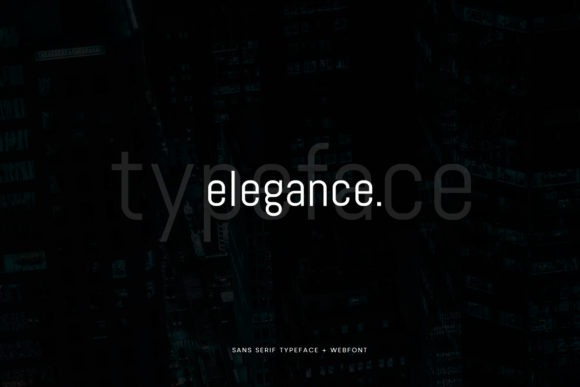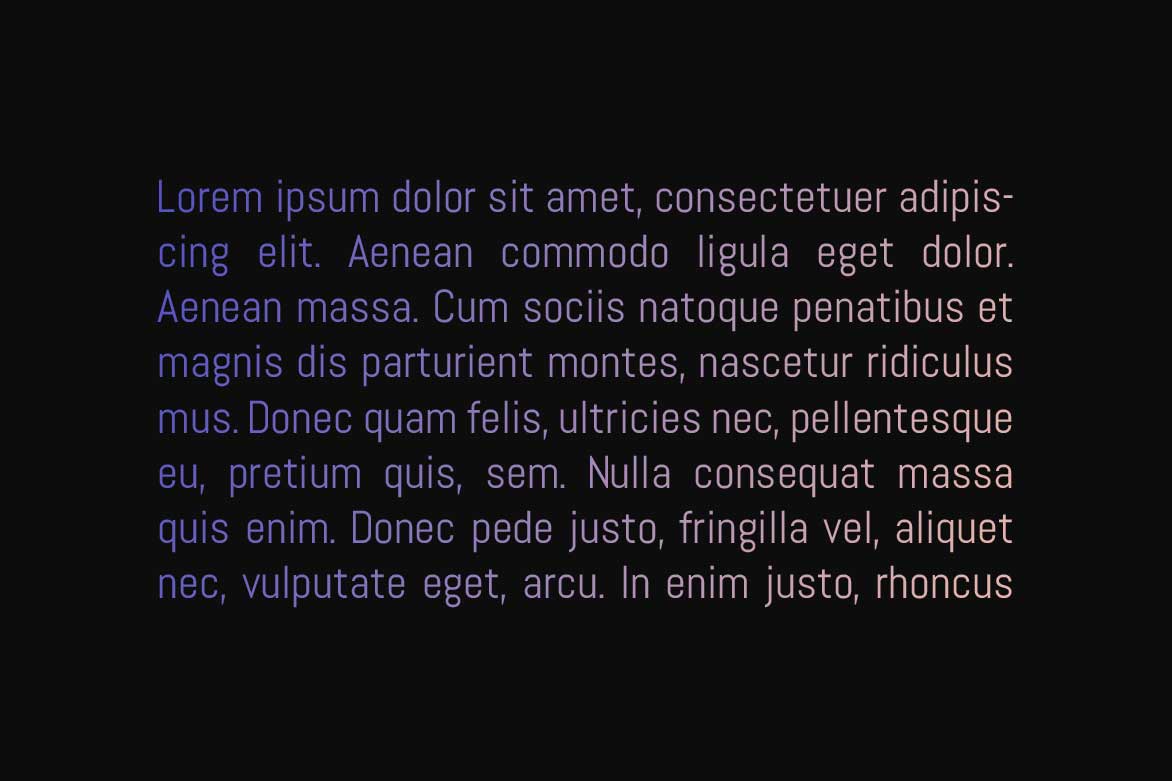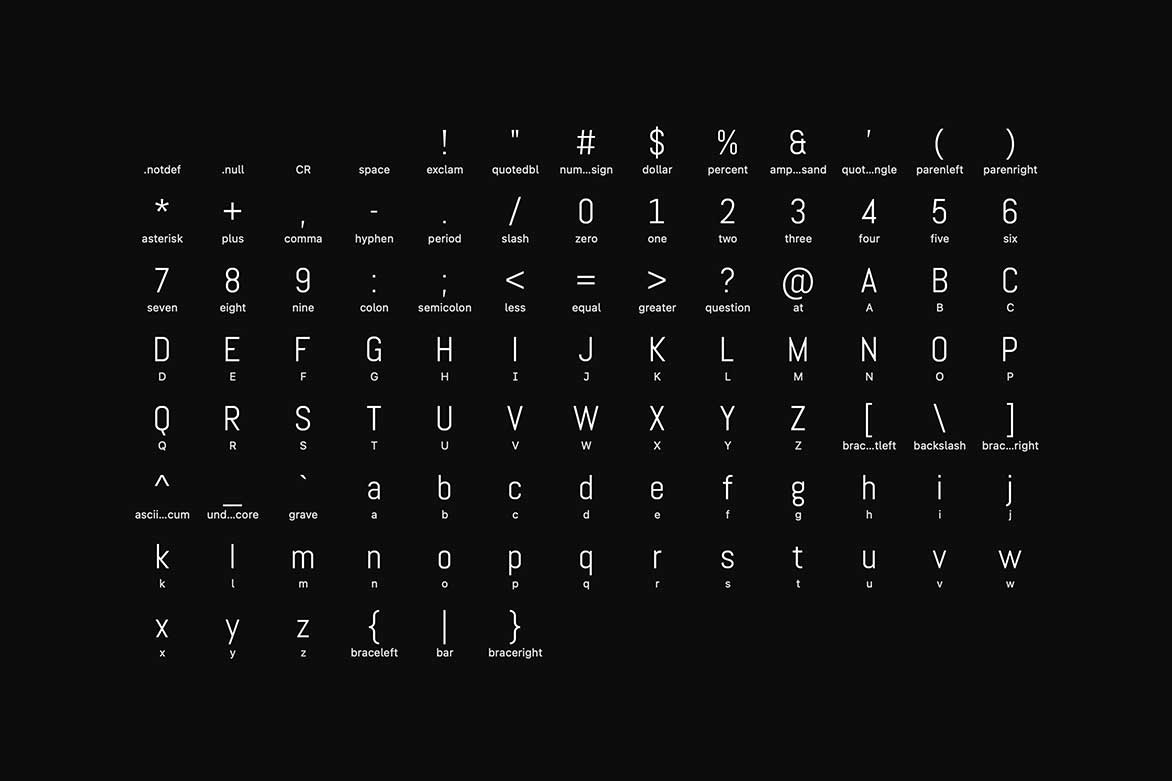
Bobcat Modern Typeface
The Bobcat is a modern and Minimal Sans Serif typeface. Bobcat Sans can keep minimalism at its best level and is a perfect choice for creative and classic typography designs with unique typography. The pack includes OTF, TTF, and Web Fonts